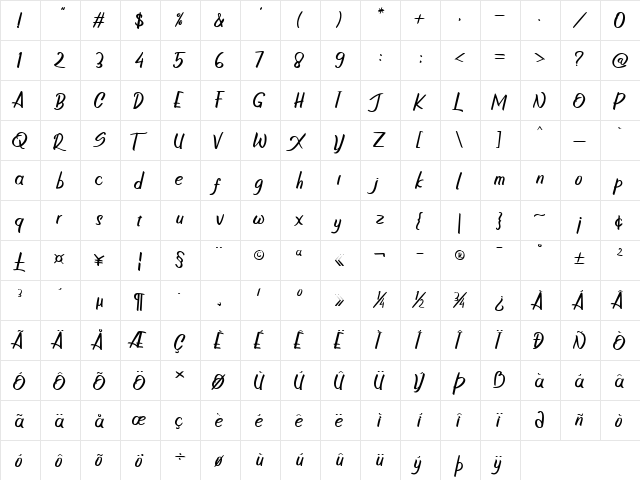
Rotterland Regular
| Foundry | Motokiwo |
| Designer | Motokiwo a.k.a Anton Cahyono |
Design Context for Rotterland Typeface
Rotterland is a composed and adaptable typeface that performs quietly and consistently across a wide range of design contexts.